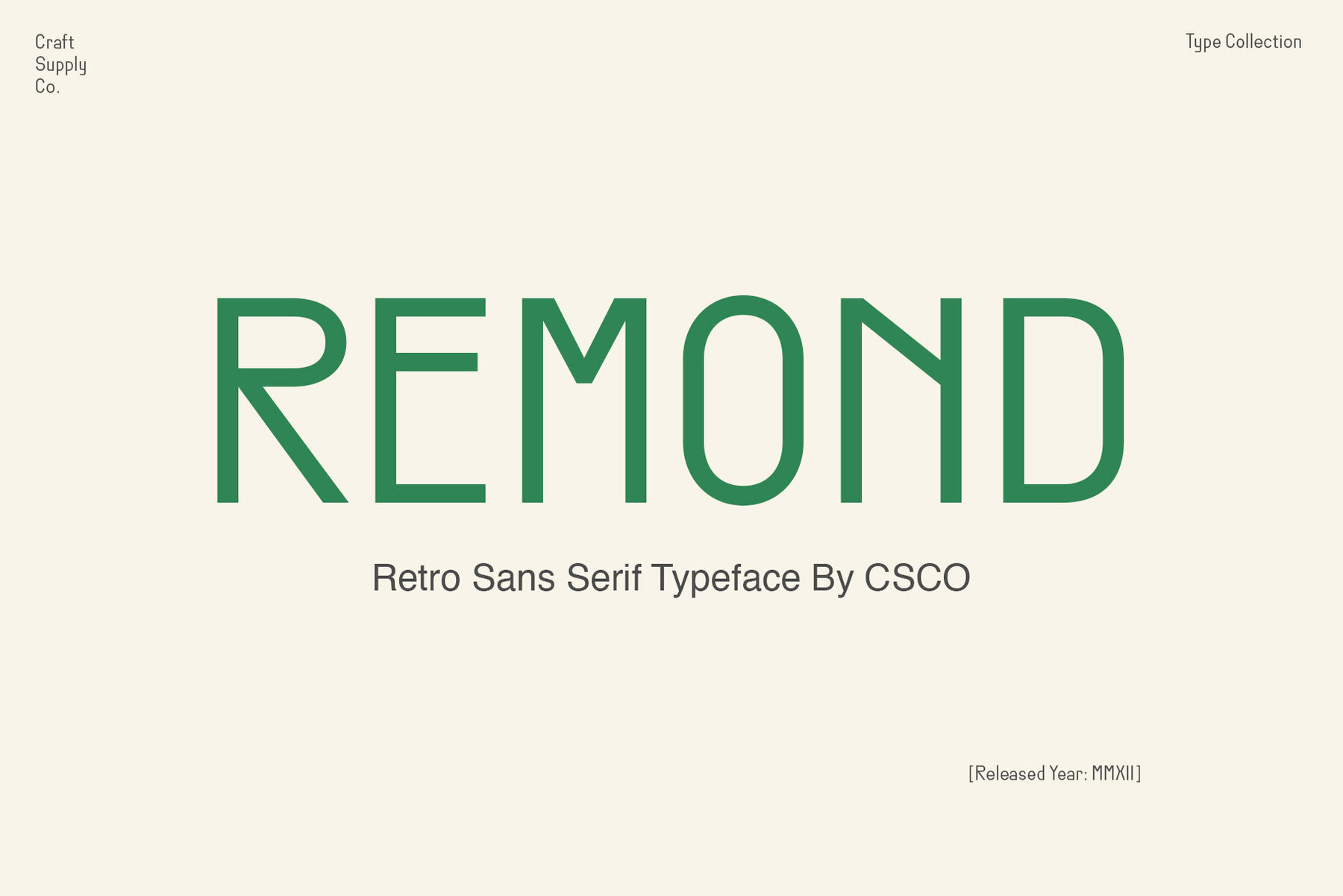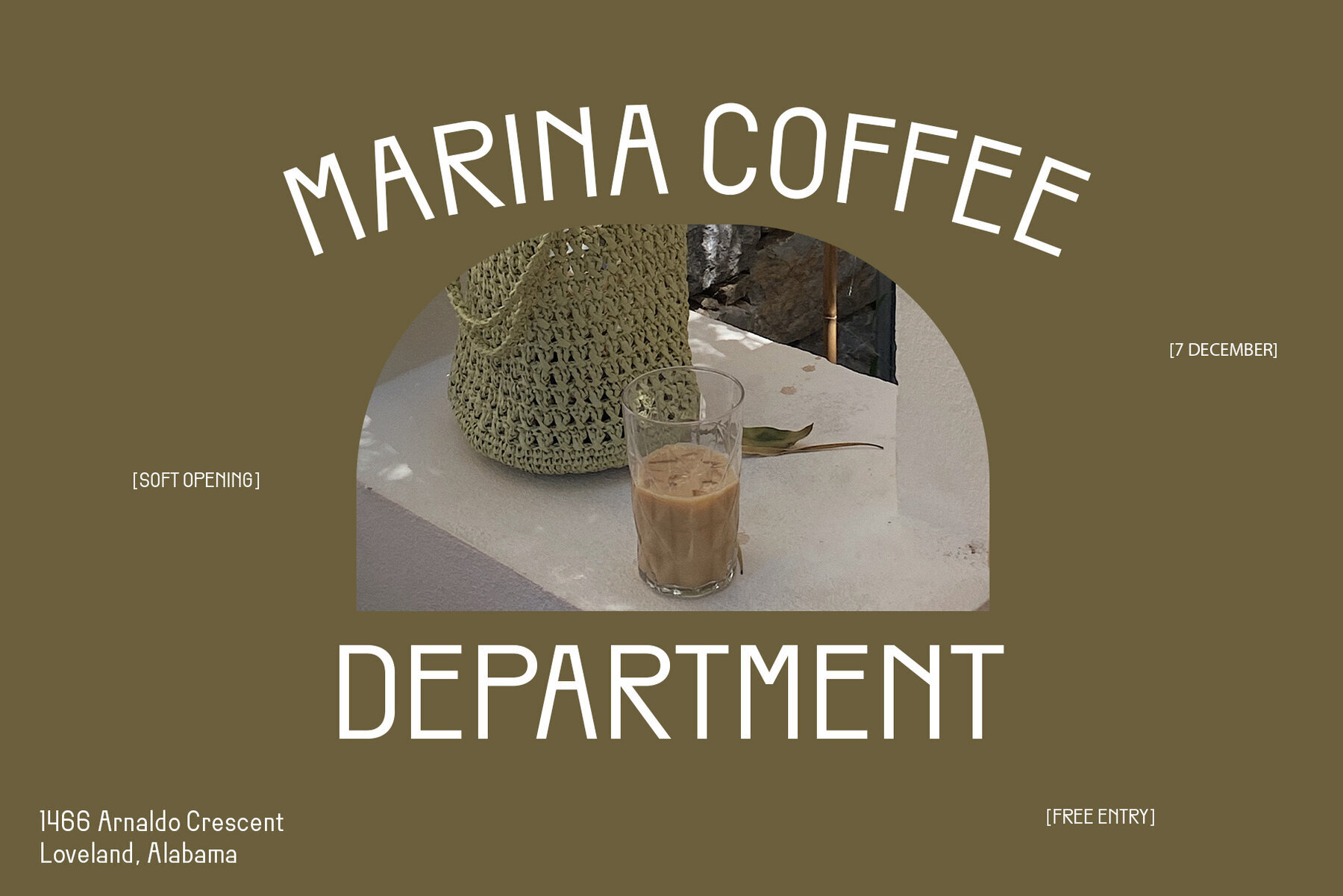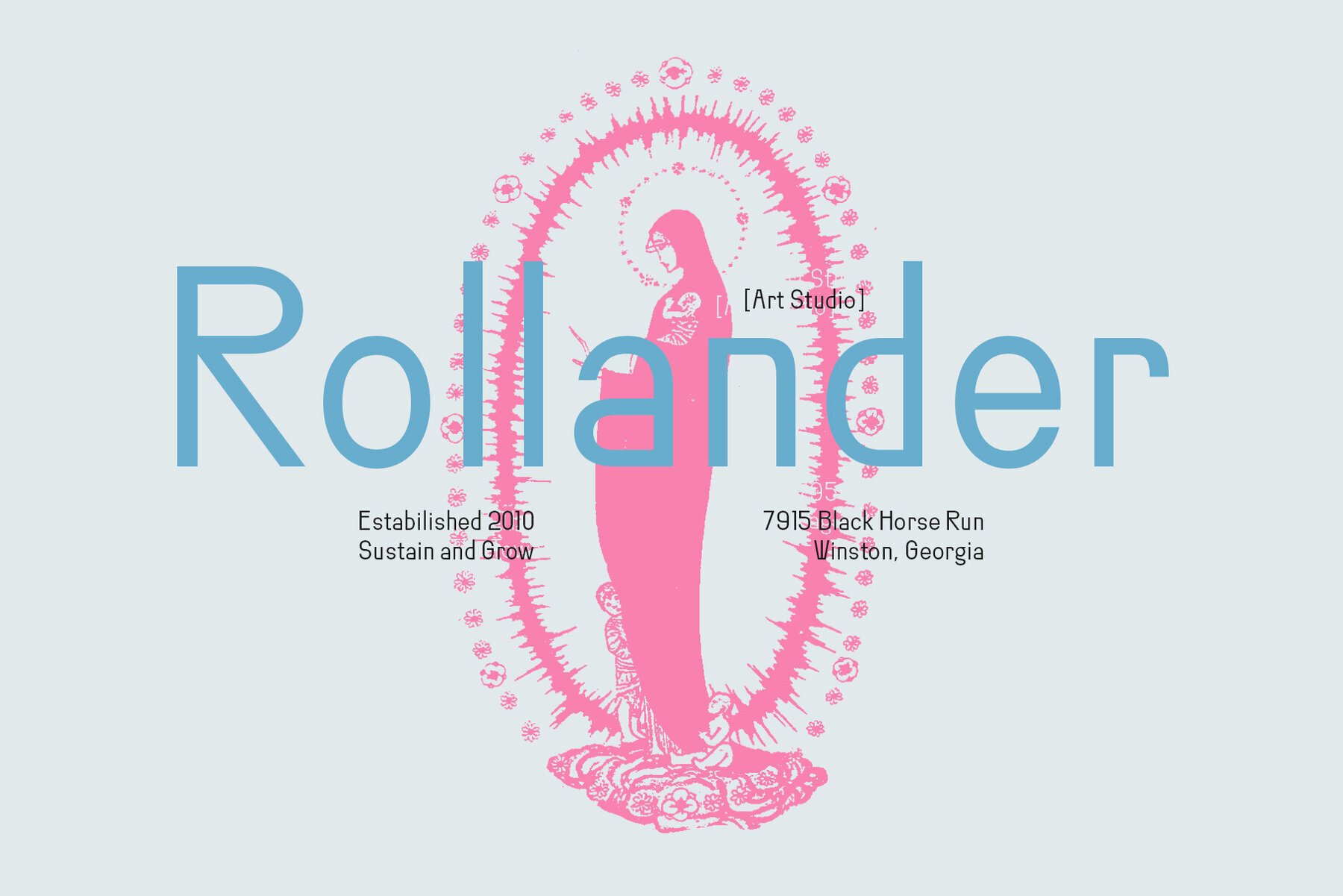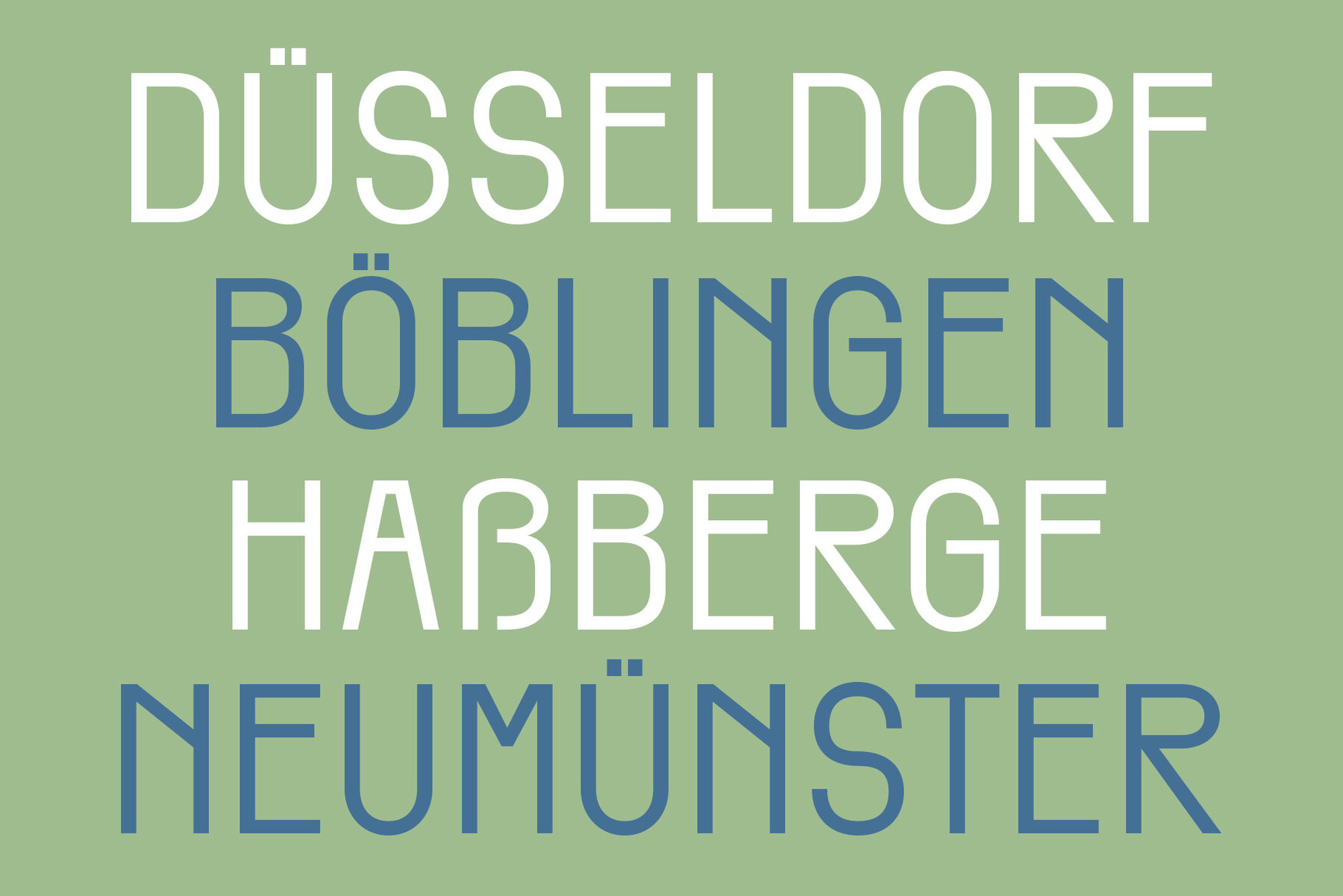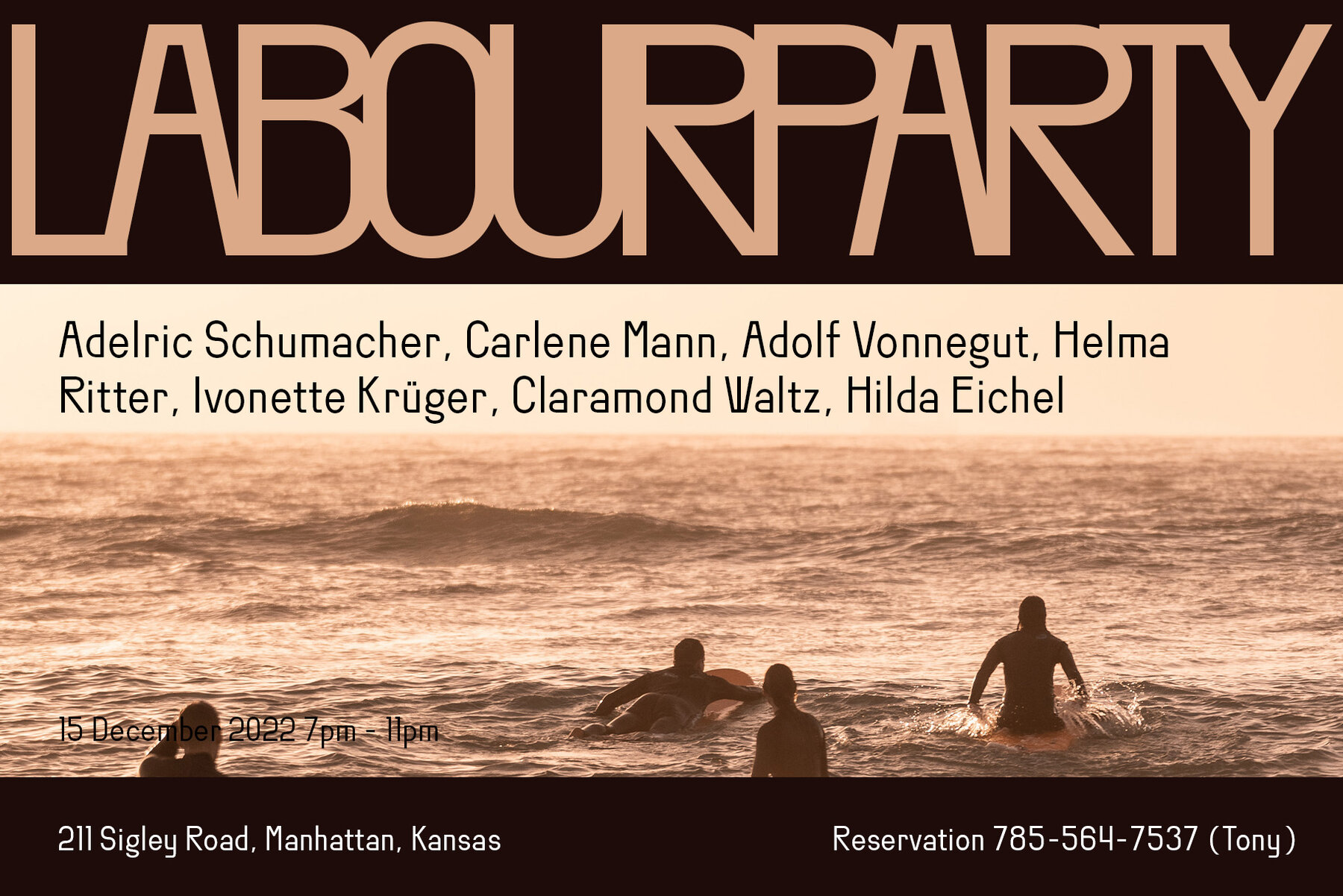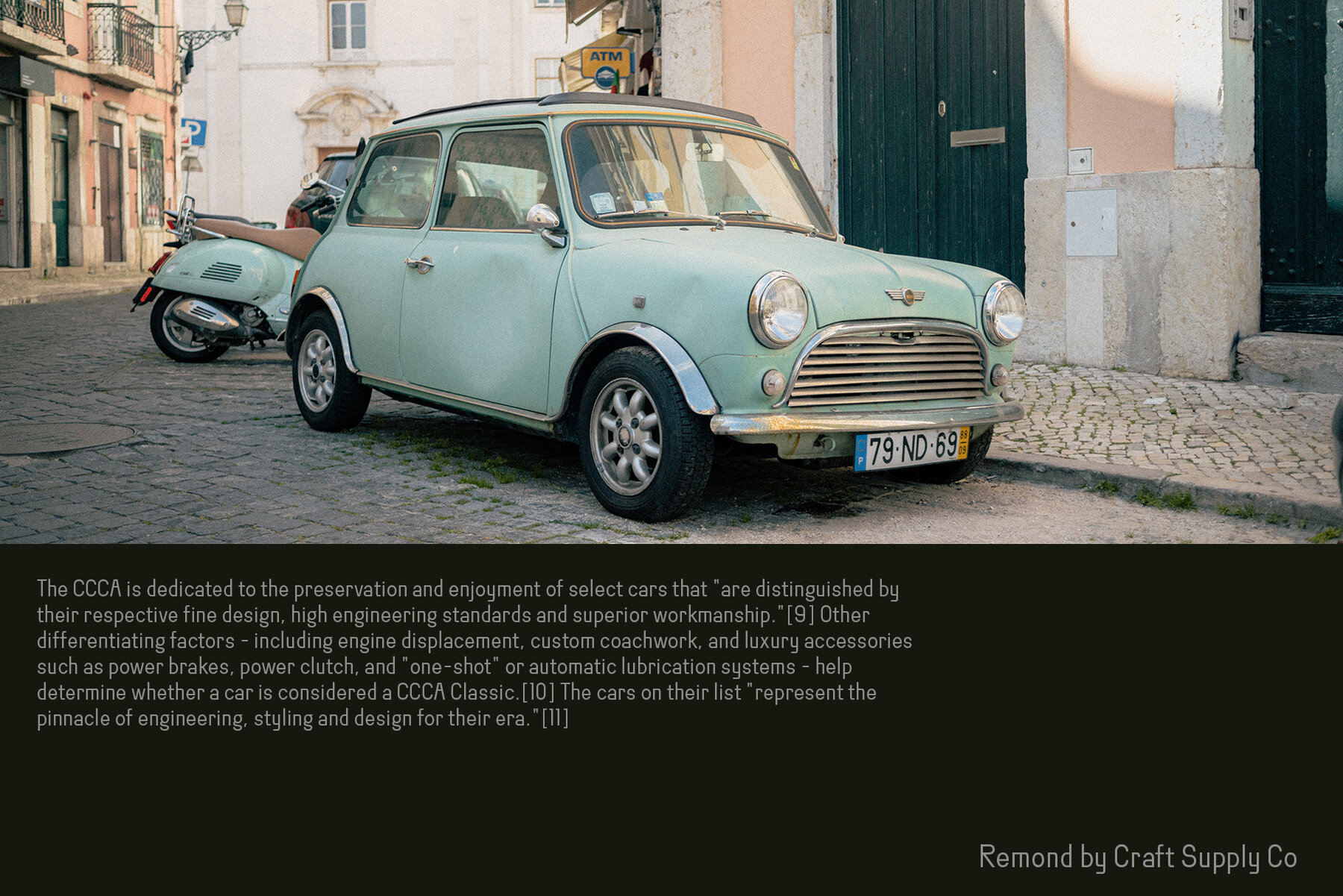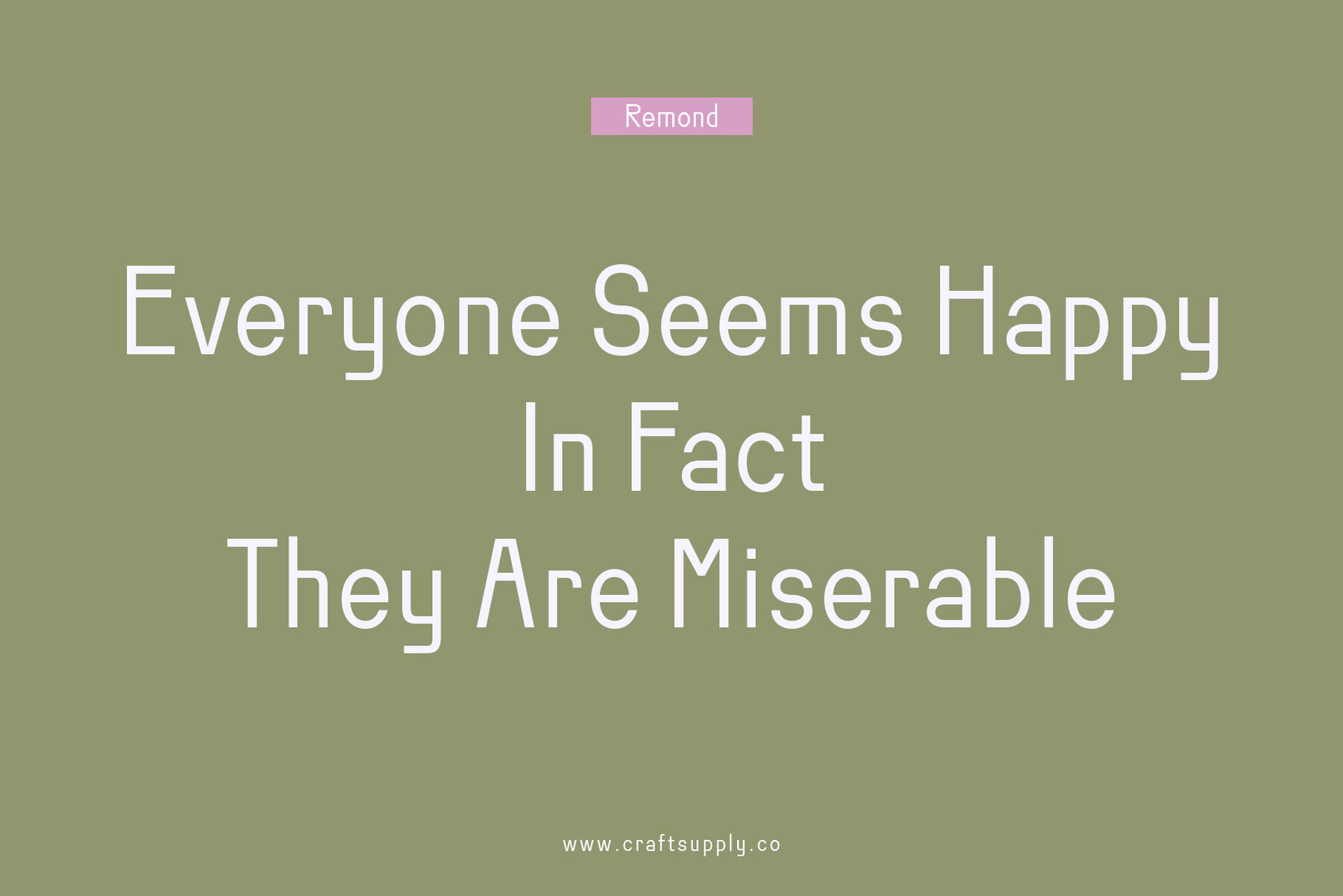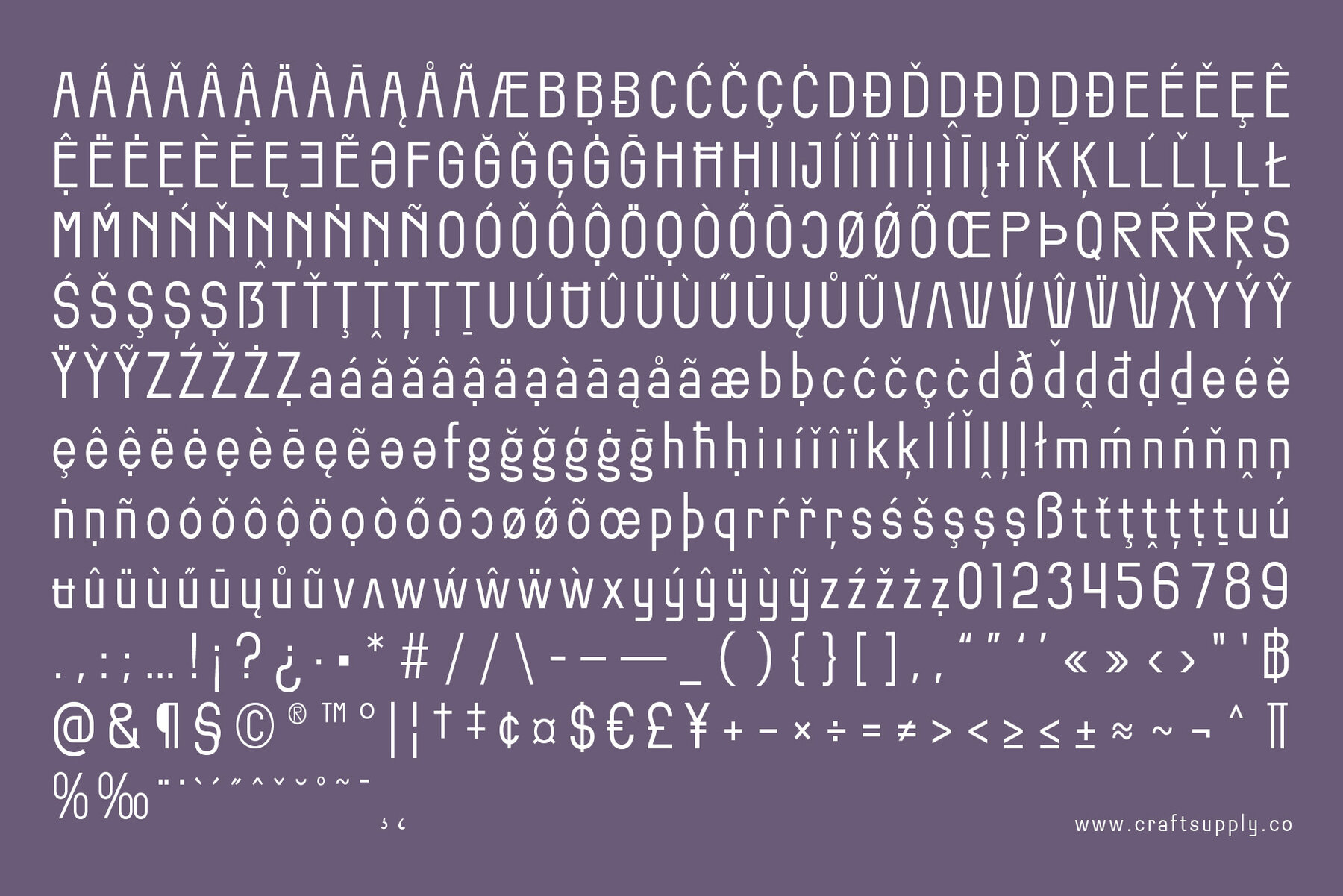
Remond Font
Remond is a captivating retro sans serif typeface designed with a geometric structure, ideal for adding flair to any display project. Whether working on greeting cards, package designs, or brand identity projects, Remond offers versatility and style. Its combination of nostalgia and contemporary flair makes it a key asset for crafting a wide array of creative projects, from book titles and posters to retro and vintage designs. With its flashy and trend-forward look, Remond makes a compelling choice for designers looking to add a distinctive touch to their work. No special software is required to explore the typeface's full potential.Remond: A Retro Sans Serif for Bold Creativity